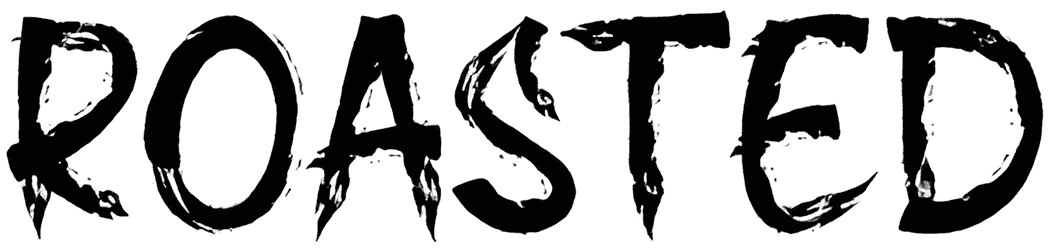
Roasted Font
Once you see how a cool brush font, such as this one, can amp up an urban design, you will never go back. Roasted font with its eye-catching form has the potential to hook a lot of viewers. Your artistic projects, such a…
Once you see how a cool brush font, such as this one, can amp up an urban design, you will never go back. Roasted font with its eye-catching form has the potential to hook a lot of viewers. Your artistic projects, such as an action movie poster, a hoodie, or many others, will be stunning with this unique script font even without lowercase letters.